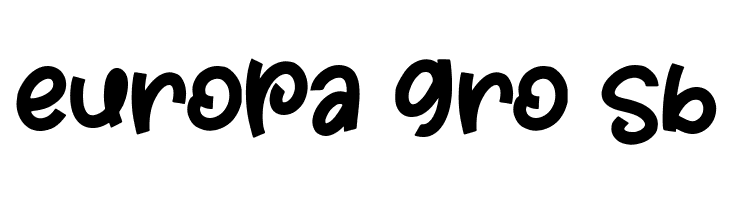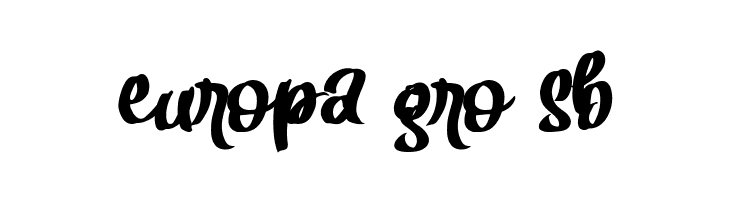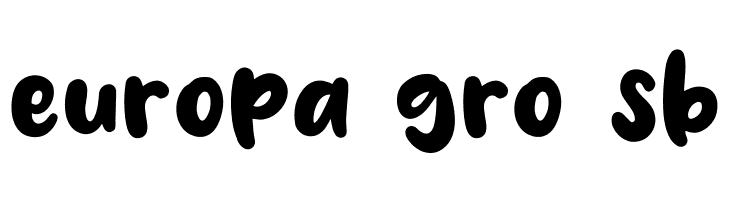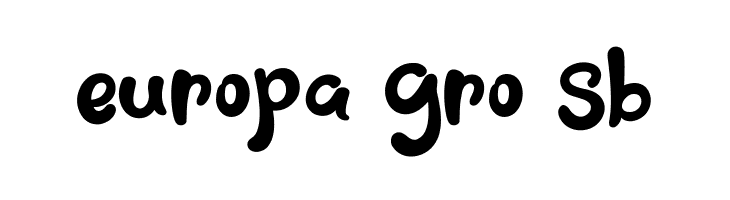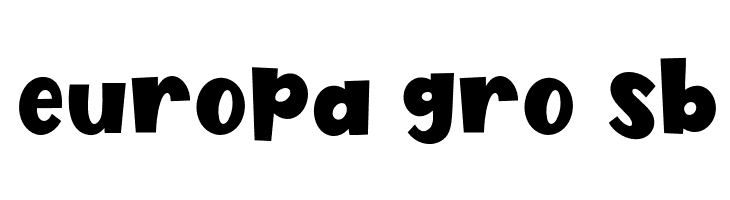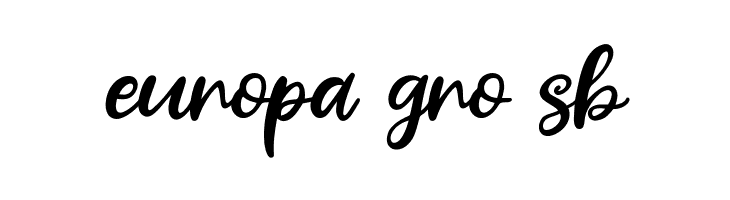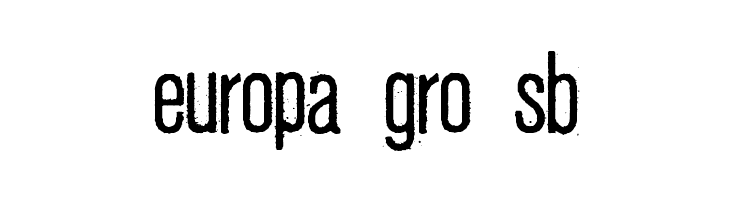
A bold, distressed font with a rugged, grunge texture.
A bold, distressed font with a textured, hand-crafted appearance.
A bold, graffiti-style font with angular, dynamic shapes.
A bold, graffiti-inspired font with sharp, jagged edges and dynamic strokes.
An elegant, flowing script font with thin, delicate lines and graceful curves.
A flowing, cursive script font with elegant loops and swashes.
A playful, bold font with characters in tilted, irregular boxes.
A bold, halftone-patterned font with a retro, disco-inspired style.
A sophisticated, elegant handwritten font with fluid, cursive letterforms and dynamic contrast.
A vintage, calligraphic font with an adventurous and historical flair.
A whimsical, playful font with decorative curls and slender characters.
A whimsical, decorative font with intricate swirls and playful loops.
A bold, italicized font with a dynamic striped pattern and high contrast.
A modern, dot-based font with a digital and futuristic style.
A clean, modern sans-serif font with rounded edges and uniform stroke width.
A distressed, vintage-style font with a stamped appearance and narrow characters.
A bold, modern font with rounded characters and consistent stroke width.
A bold, futuristic font with a blocky, industrial design.
A dramatic, edgy font with a dripping, chaotic style.
A playful and energetic handwritten font with a casual vibe.
A playful, bold font with a whimsical, hand-drawn style.
A bold, brush-style script font with a dynamic and modern flair.
A playful, bold font with rounded, thick strokes and a hand-drawn feel.
A bold, brush-style handwritten font with dynamic and fluid strokes.
A lively, flowing script font with elegant curves and bold presence.
A playful, bold handwritten font with a whimsical and friendly style.
A bold, playful handwritten font with a lively and energetic style.
A bold, playful handwritten font with rounded edges and a casual style.
A bold, handwritten font with a playful and lively style.
A playful, bold script font with a handwritten, whimsical style.
A playful, bold handwritten font with a lively and energetic style.
A bold, geometric font with a three-dimensional outline and futuristic style.